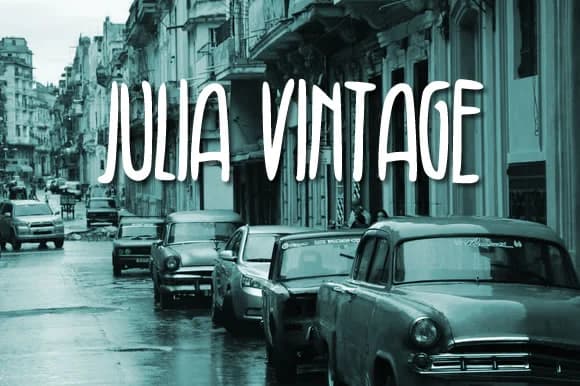
About Julia Vintage Font
Julia Vintage Font by Julia Fang is a flowing script typeface rooted in nostalgic letterforms that bring distinctive character to contemporary design work. The font captures the handwritten quality of earlier eras while remaining clean and legible enough for modern applications across various mediums. Its organic curves and authentic pen-like strokes create visual warmth without compromising readability, making it accessible for both headlines and body text applications.
This typeface works particularly well for wedding invitation suites, where its rhythmic letterforms enhance romantic compositions and ceremony announcements with period-appropriate charm. Designers also appreciate it for boutique skincare packaging labels, vintage-inspired book covers, and decorative product branding for Etsy shops selling handmade goods. The comprehensive glyph set supports varied design needs and multilingual requirements, expanding its reach across different markets and design disciplines.
Whether you're crafting client proposals, designing custom subscription box packaging, building a cohesive brand identity with retro sensibilities, or creating decorative signage for independent retailers, Julia Vintage brings subtle warmth to your visual communications. The font's versatility spans both digital layouts and print applications, making it equally useful for web designers and traditional print professionals. Its hand-crafted aesthetic pairs well with both minimalist designs and more ornate compositional approaches, adapting to diverse brand personalities and stylistic directions.
Julia Vintage Font is a script font that shines as a display or heading face. Pair it with a clean sans-serif or serif font for body text β the contrast creates a clear hierarchy while the two styles stay balanced and easy to read.